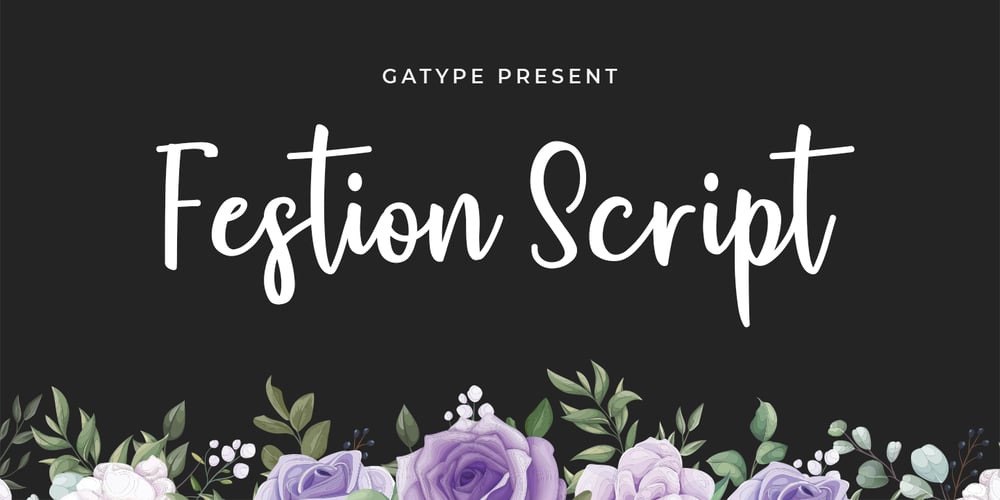
Festion Script Font Family was designed by khaidir and published by Gatype. Festion Script contains 1 styles and family package options. Festion Script is a beautiful script font It can be used for many purposes. such as logos, product packaging, wedding invitations, branding, headlines, signage, labels, signatures, book covers, posters, quotes and others. Blessing Script featuring OpenType style alternatives, International binders and support for most Western Languages is included. To enable the OpenType Stylistic alternative, you need a program that supports OpenType features such as Adobe Illustrator CS, Adobe Indesign & CorelDraw X6-X7, Microsoft Word 2010 or a later version.